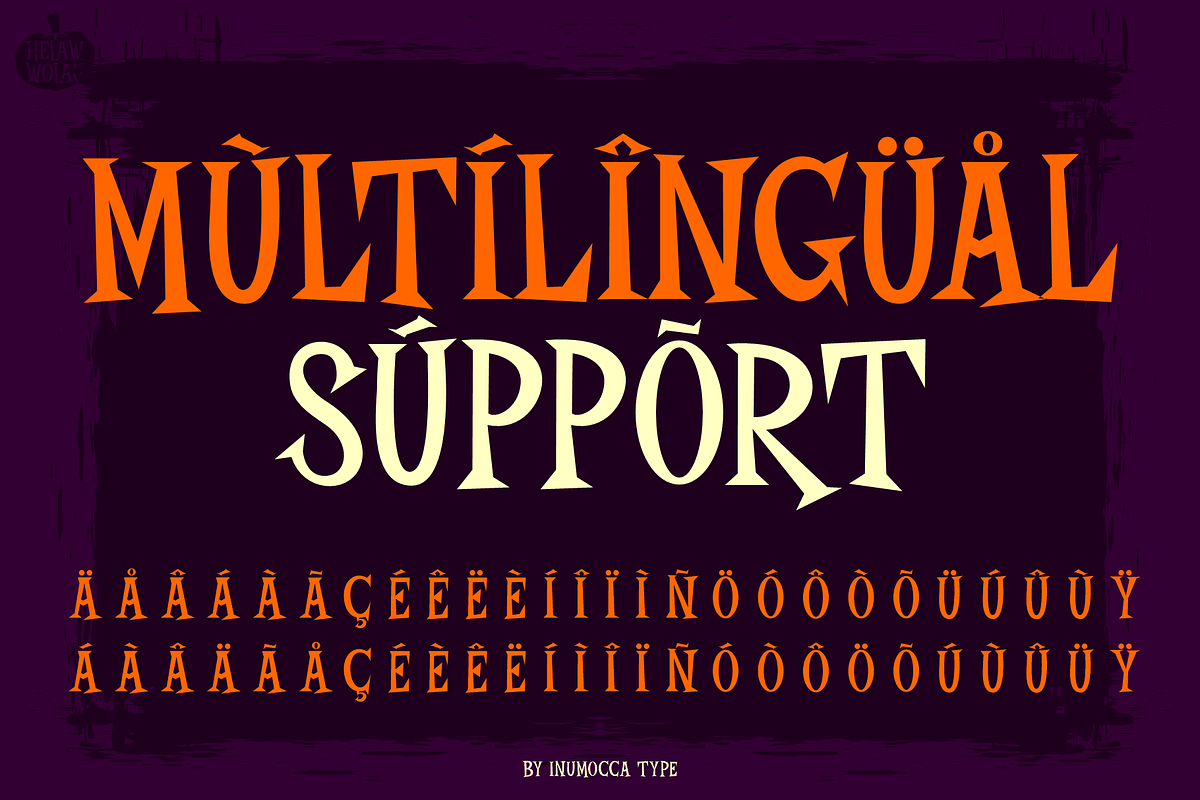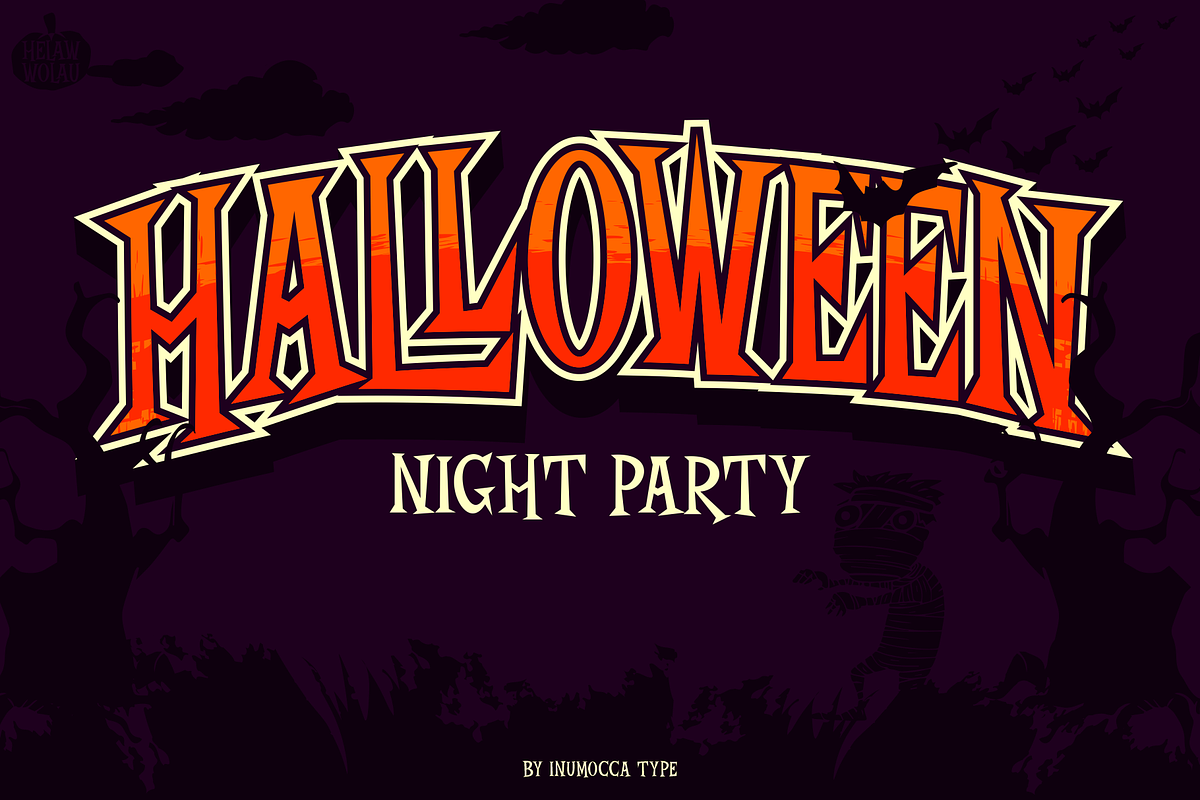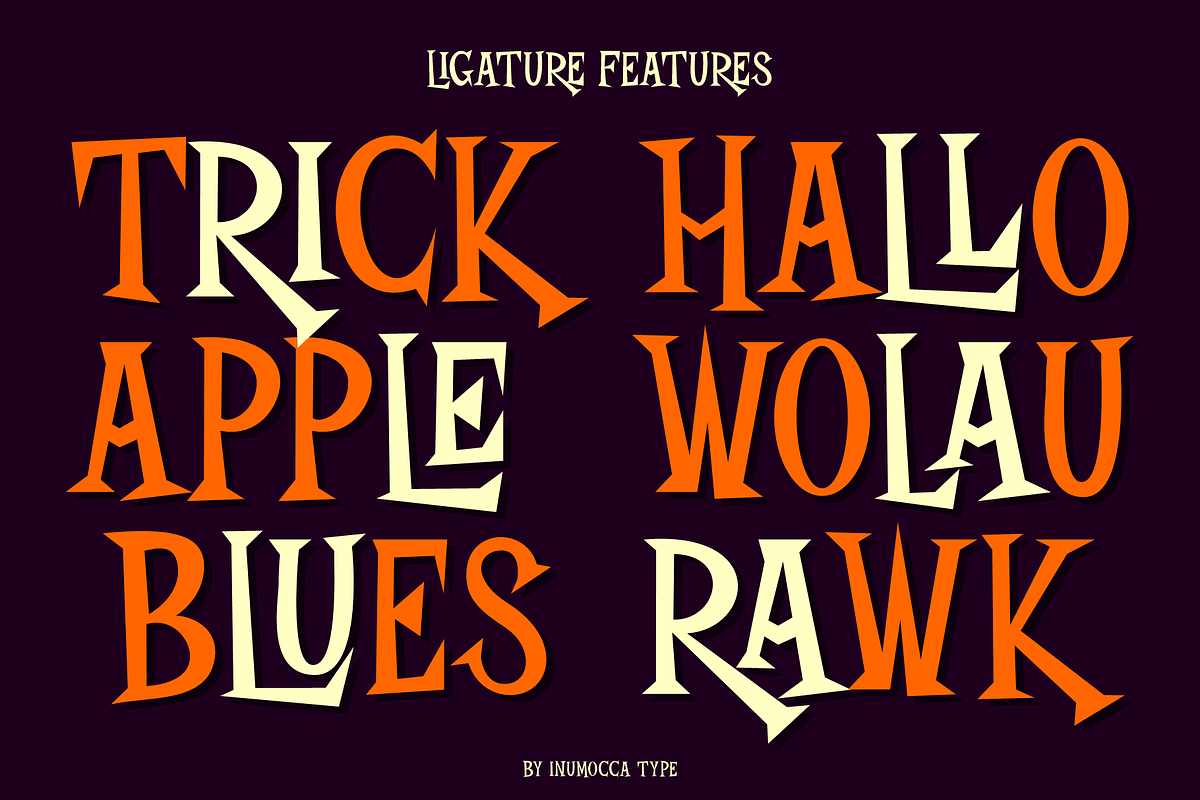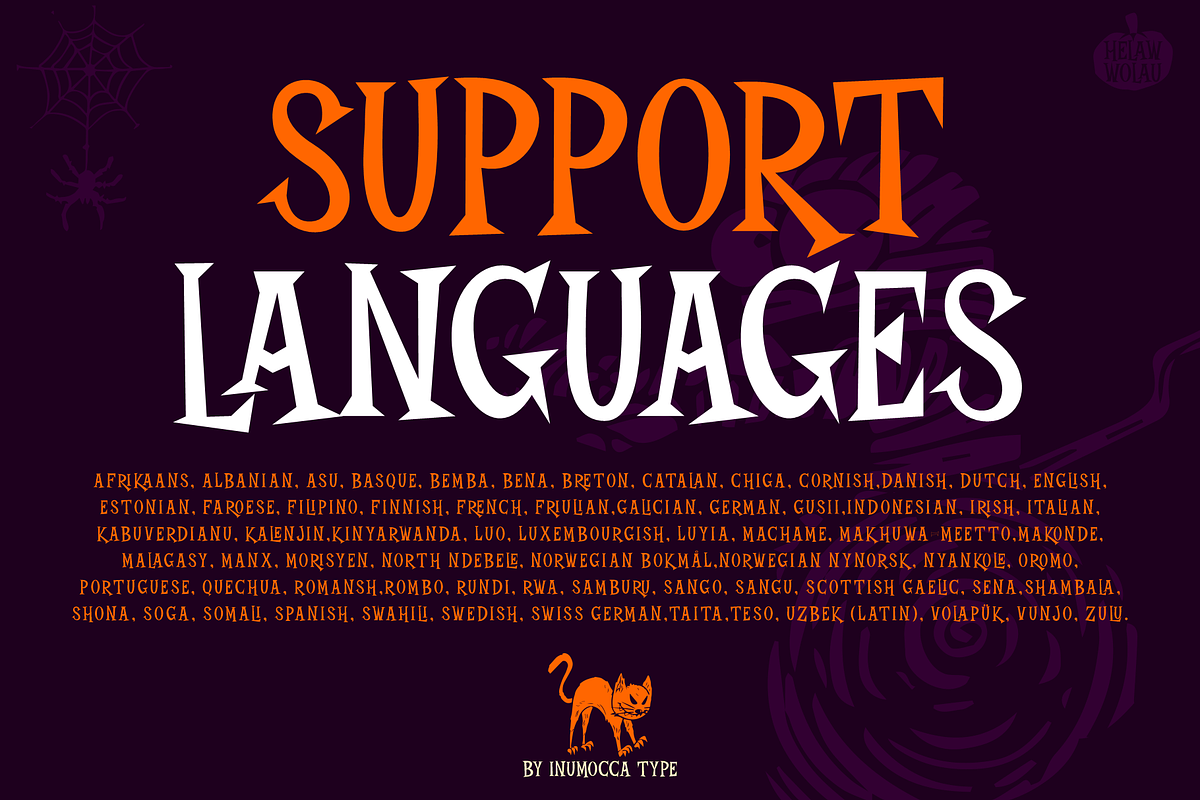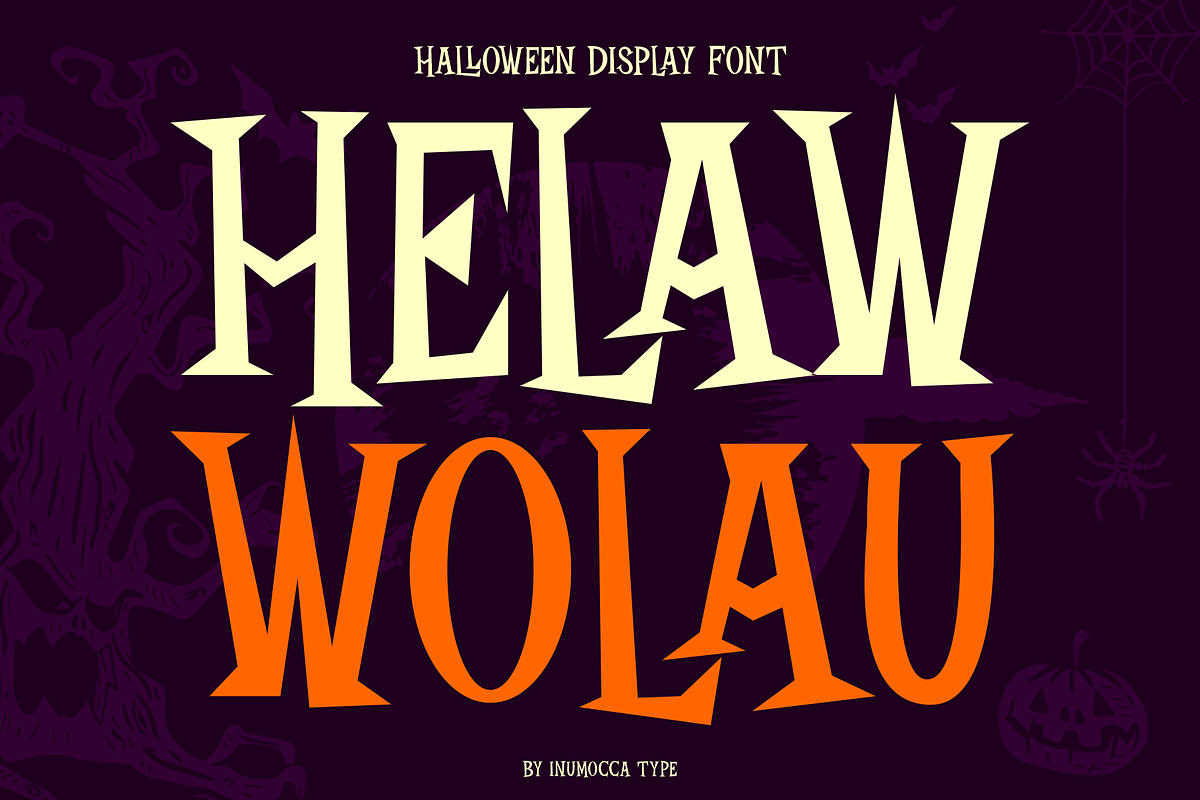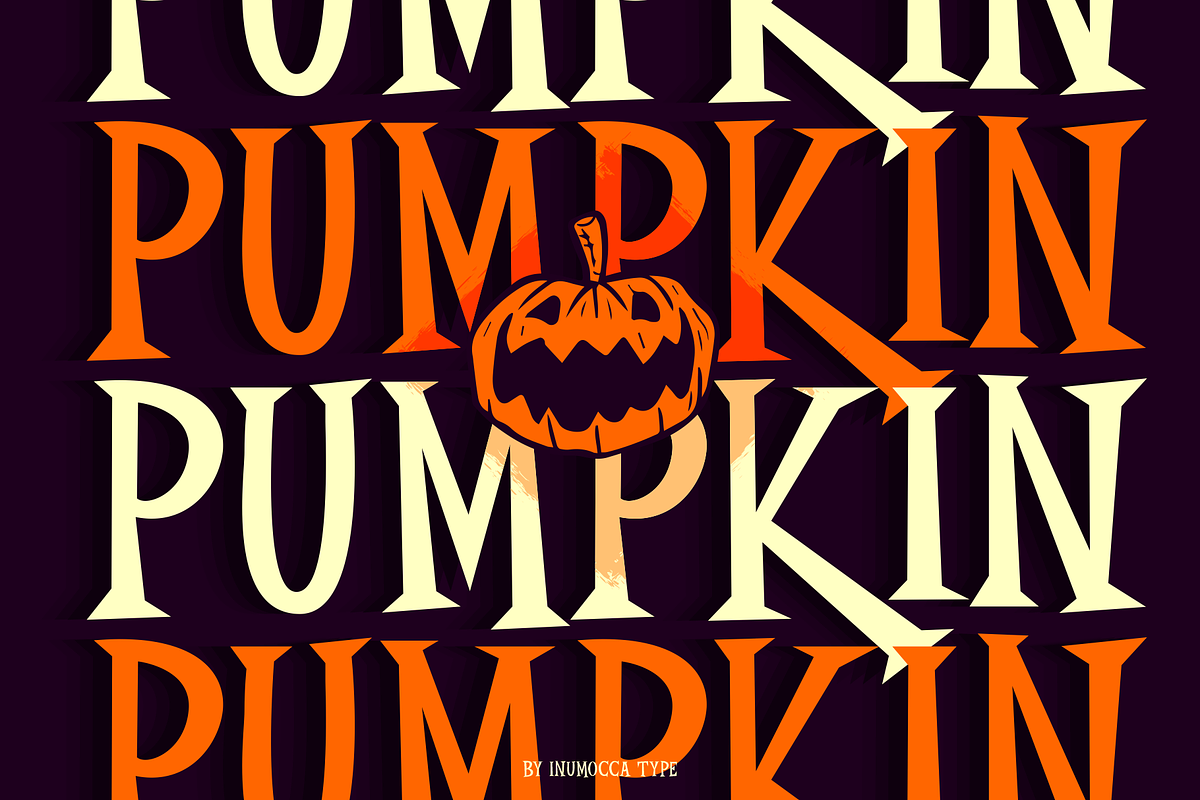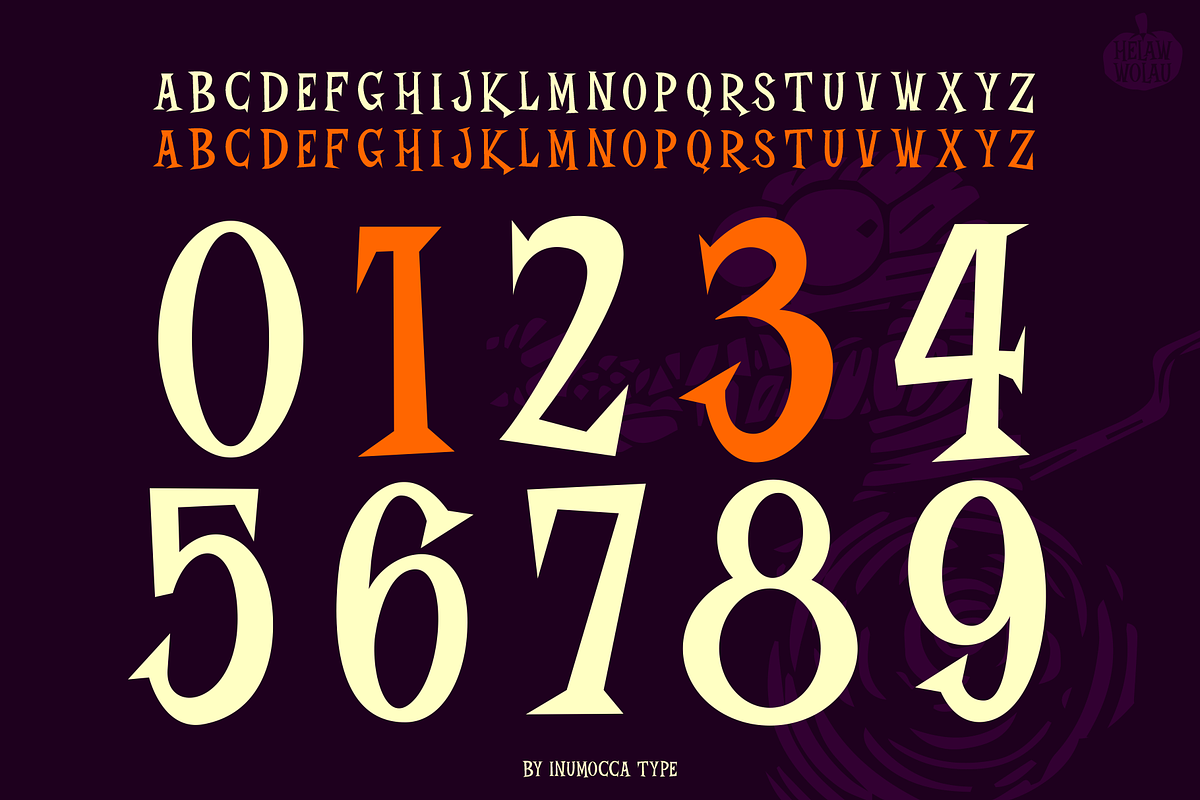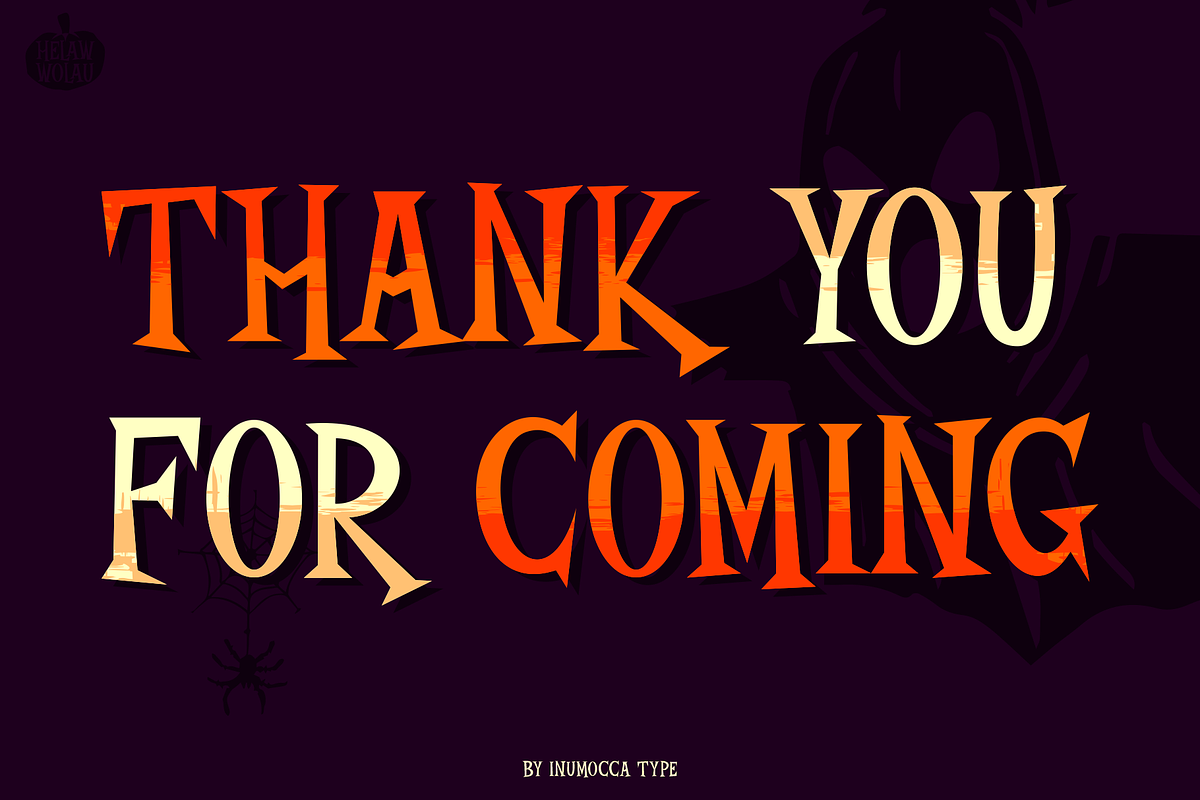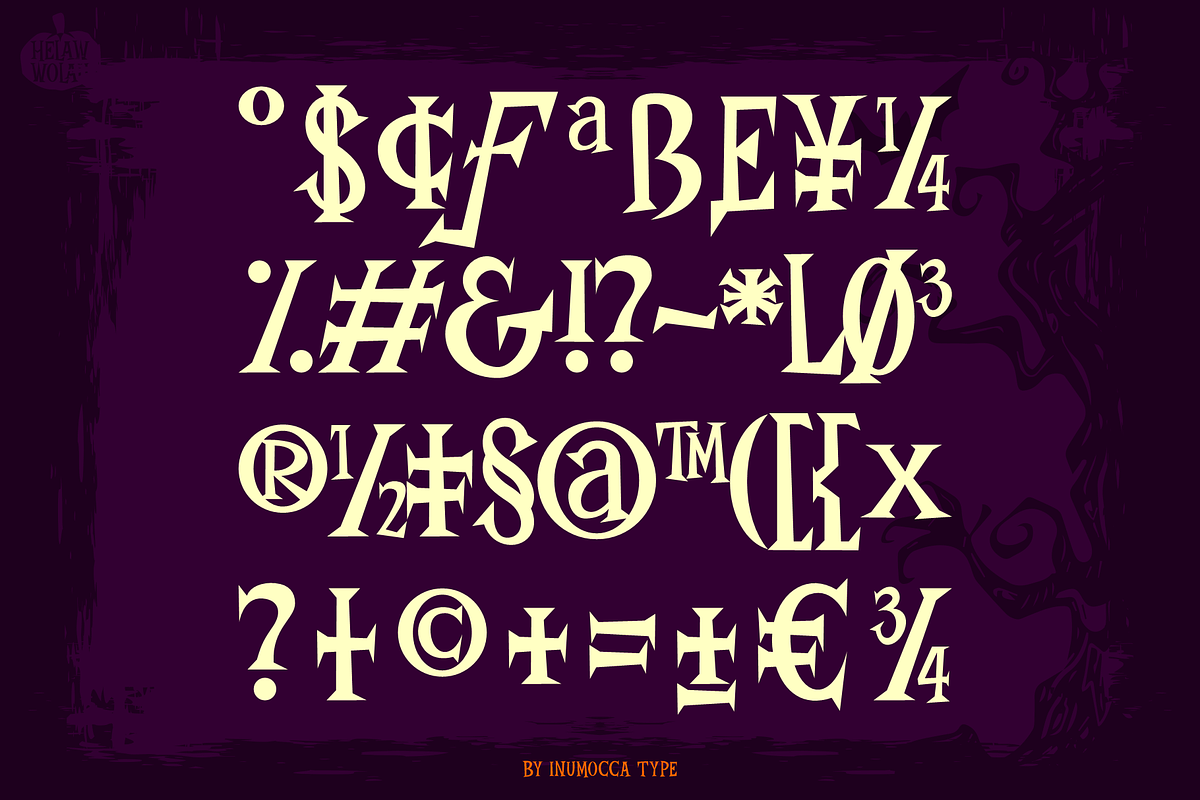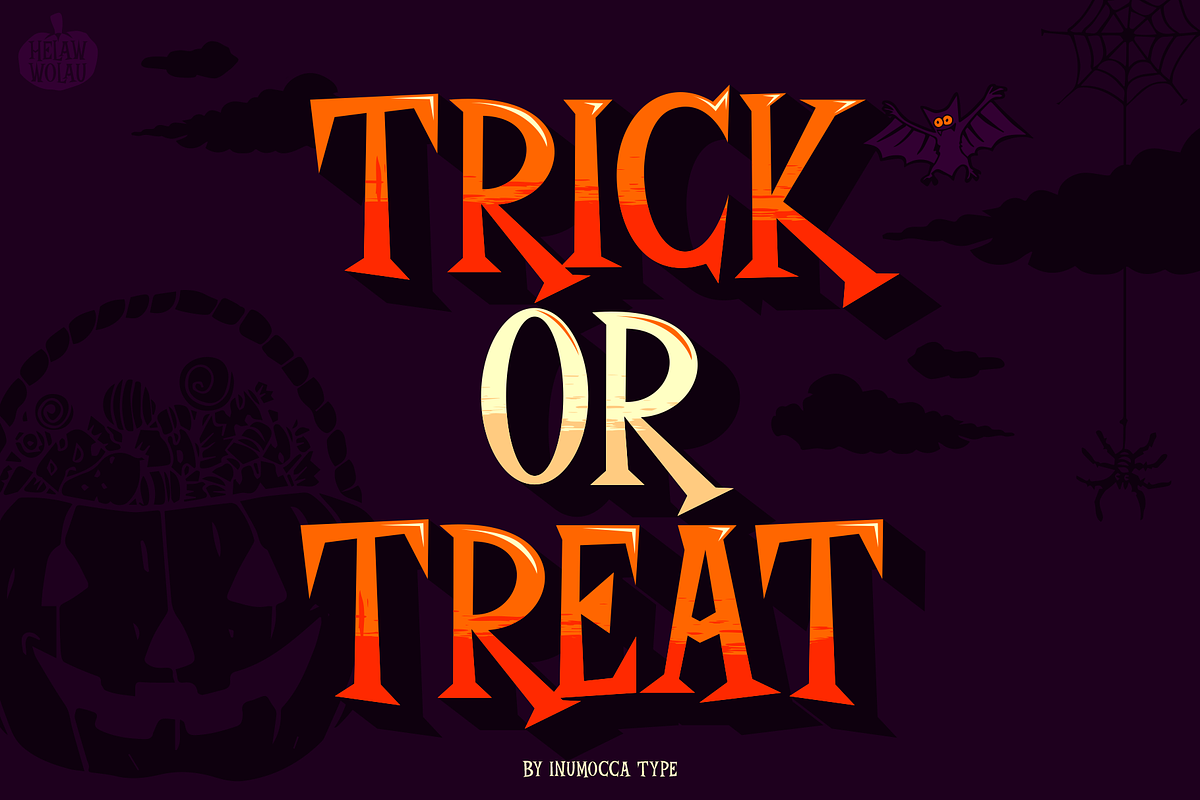
Helaw Wolau
Helaw Wolau Halloween Display Font, simple and strong Character. come with some simple Ligature for covering your Project, like Branding, Movie Title, Headline Letter, Bookcover or Book Content, Magazine cover, Poster, Quotes Lettering, Logos, and more your project design.
- Unique glyphs
- Multilingual Characters
- UPPERCASE
- Numeric
- Symbol
- Punctuation Character